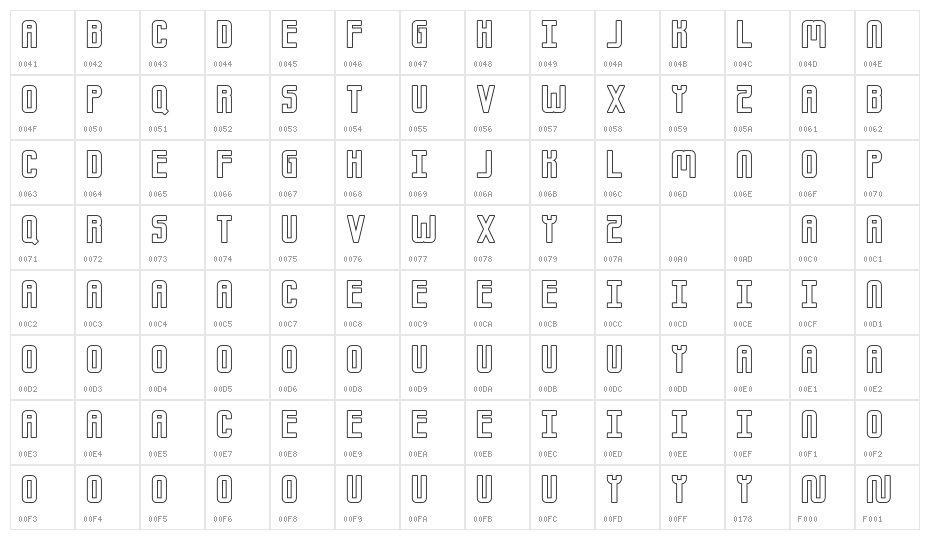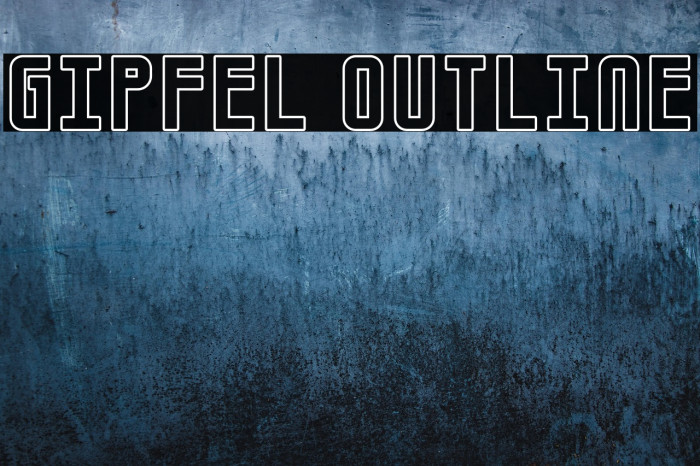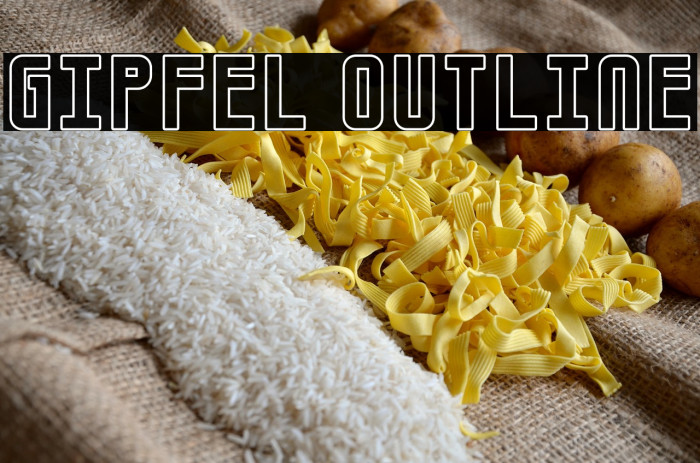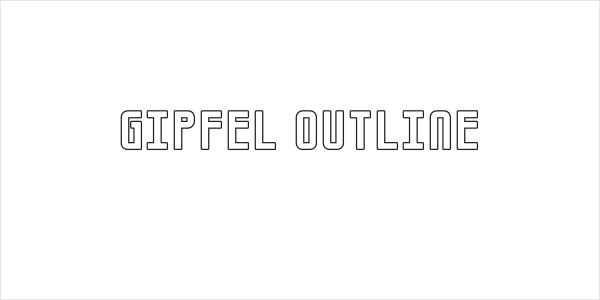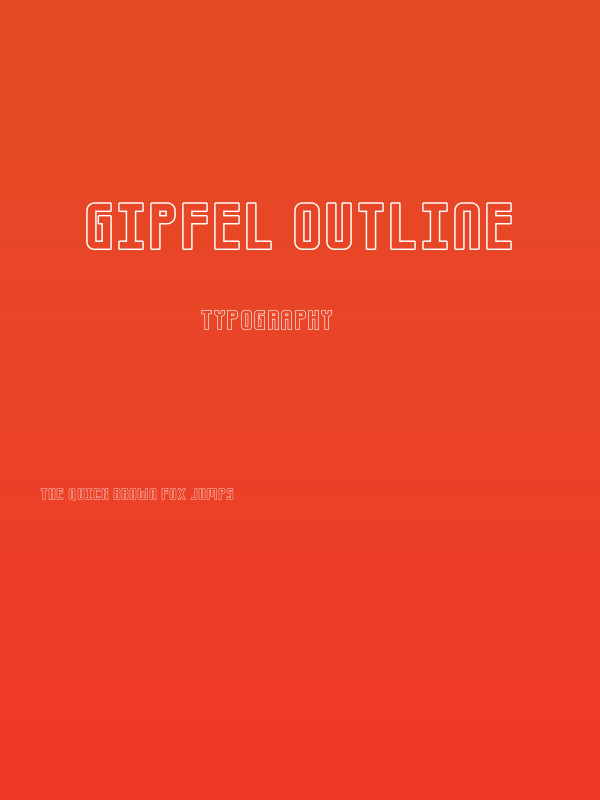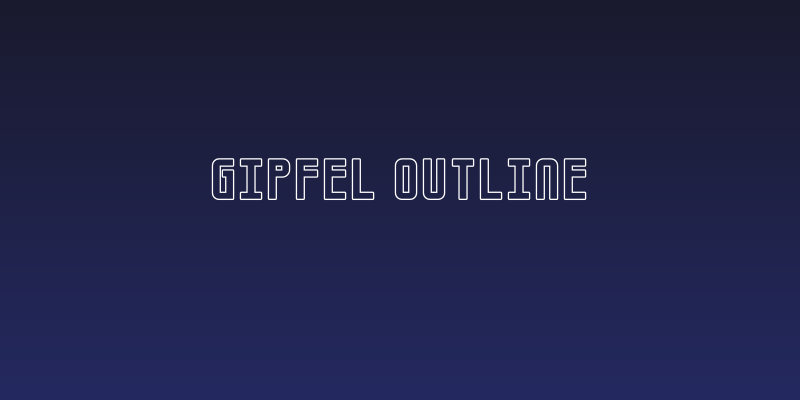
Gipfel Outline Font
Gipfel Outline Description
This font features a distinct outline style, characterized by its geometric and angular shapes. Each letter is crafted with precision, showcasing a uniform thickness throughout the outlines. The uppercase letters exhibit a bold and commanding presence, while maintaining a clean and modern aesthetic. The absence of lowercase letters and numbers suggests a focus on impactful, large-scale applications. The font's design is reminiscent of architectural blueprints or technical drawings, making it ideal for projects that require a futuristic or industrial feel. Its unique outline form allows for creative layering and color fills, offering versatility in design applications.
| Proposed Projects | Ideal for branding, posters, signage, and any design requiring a futuristic or technical look. |